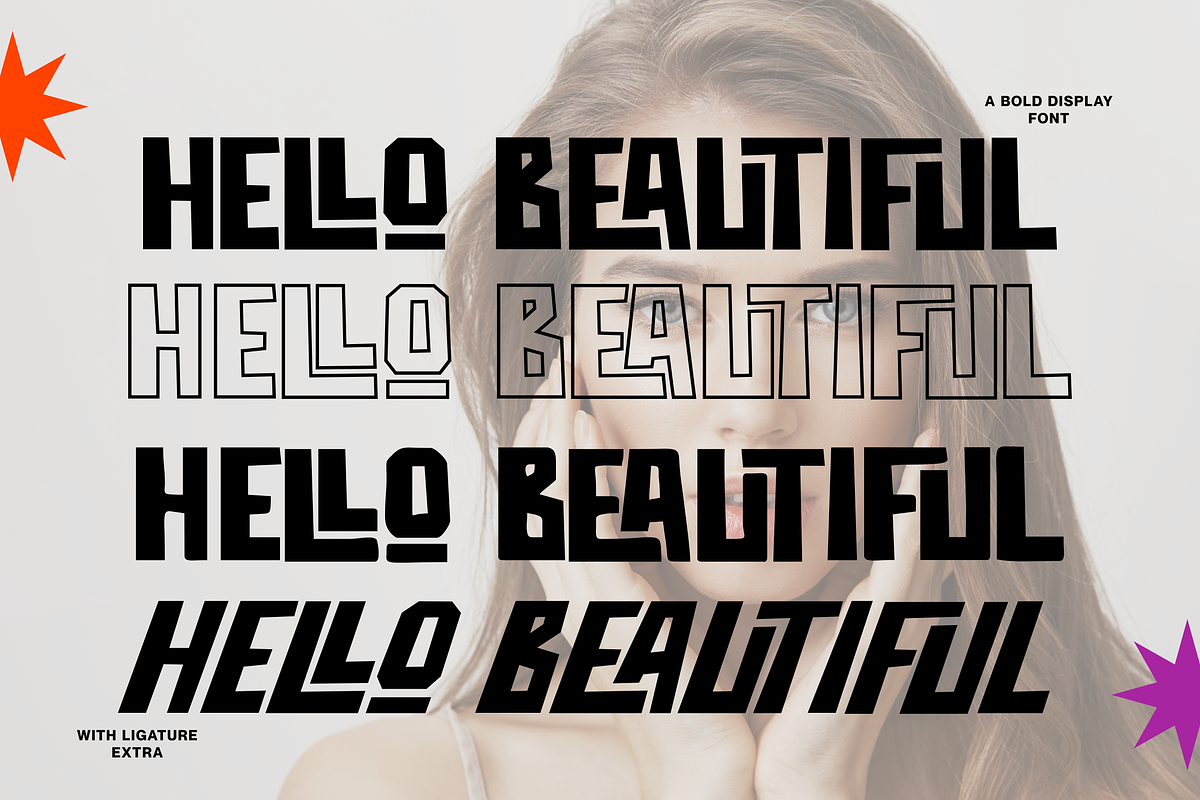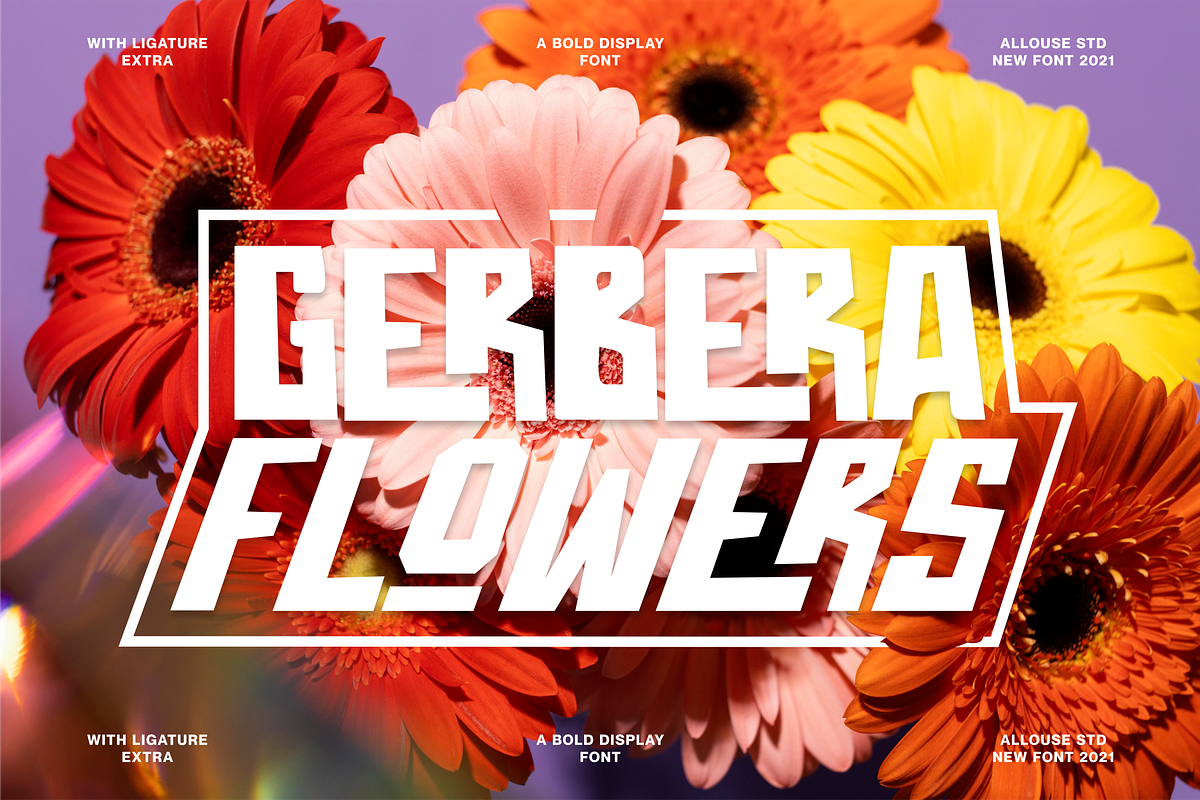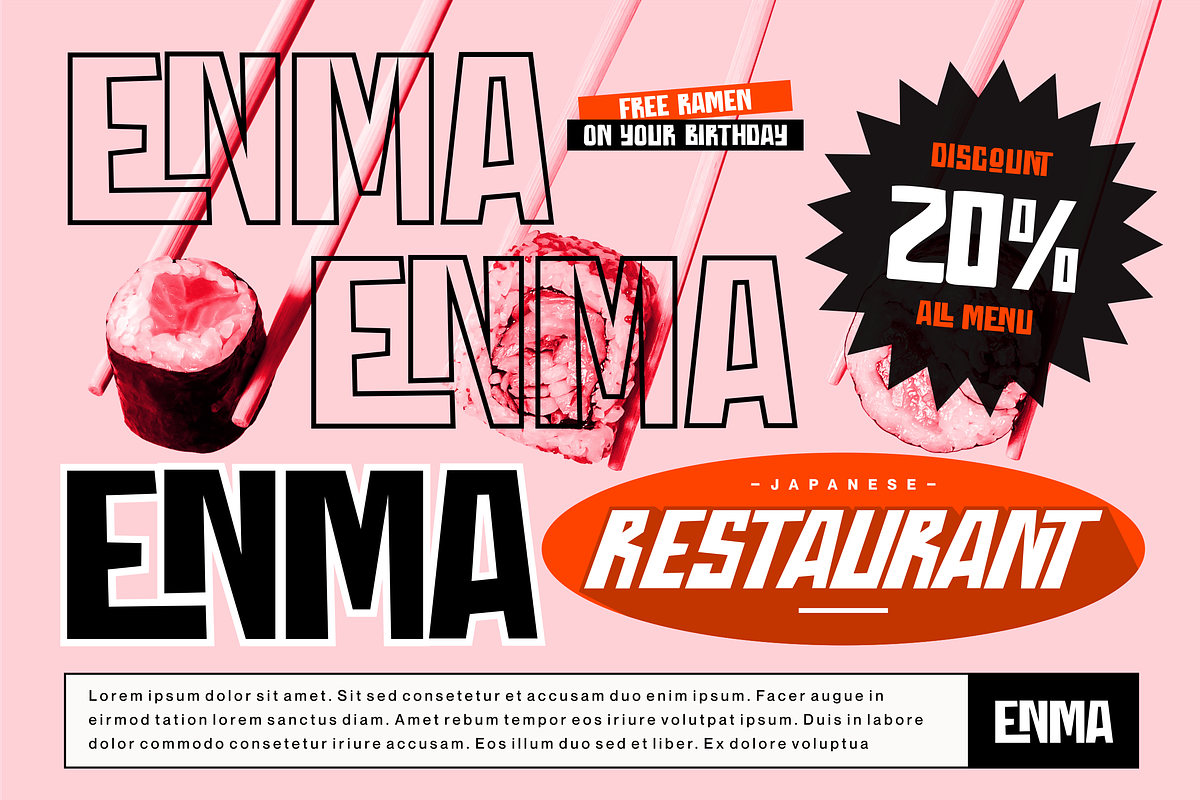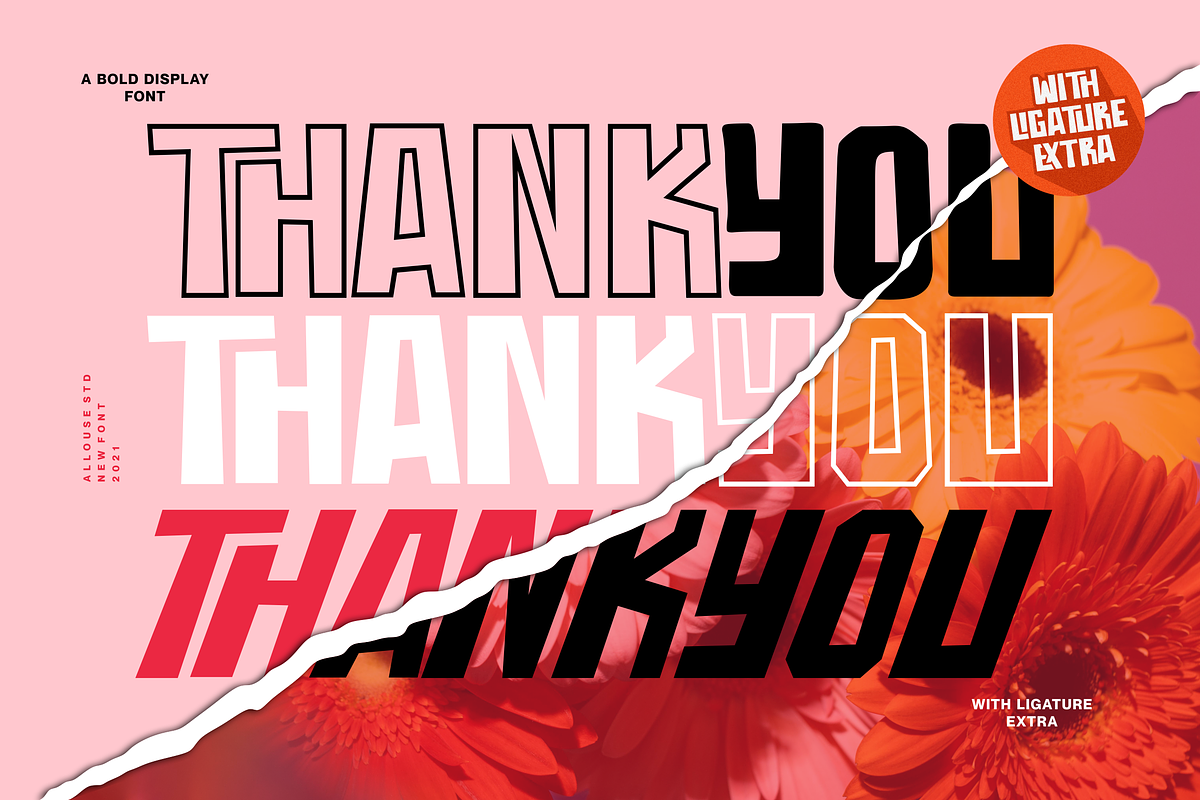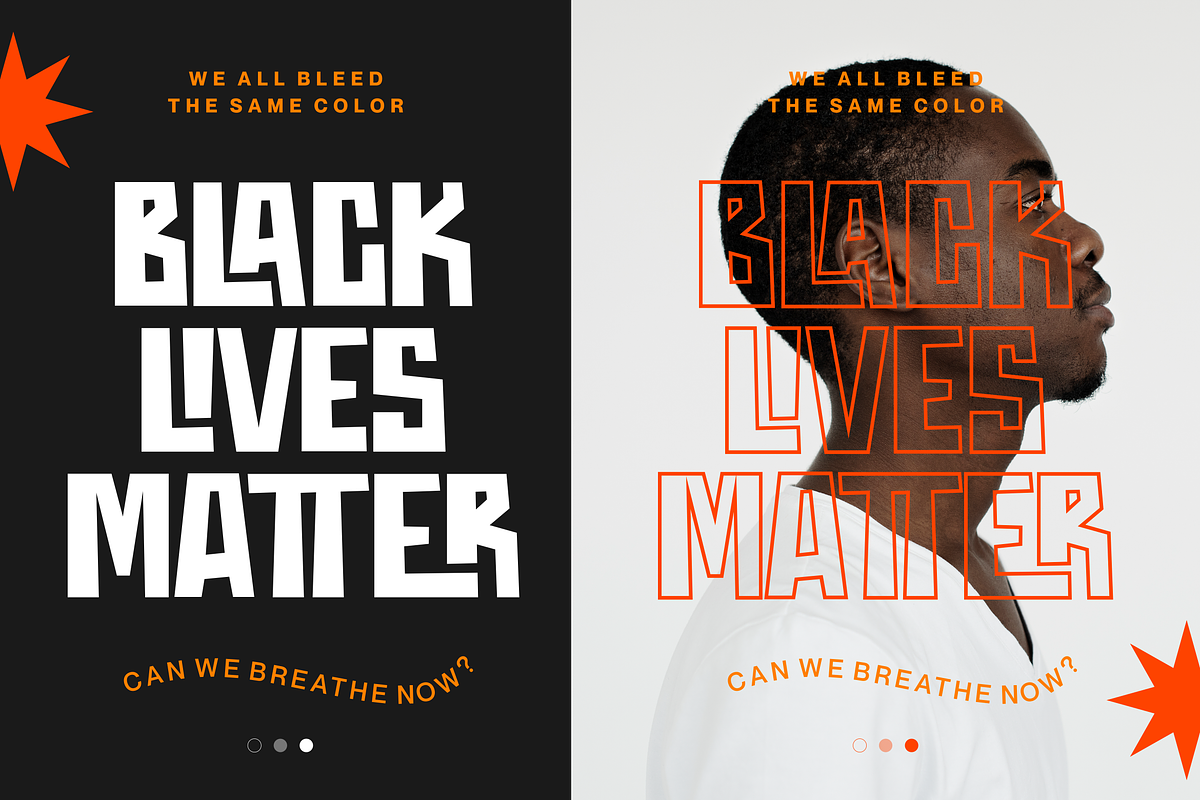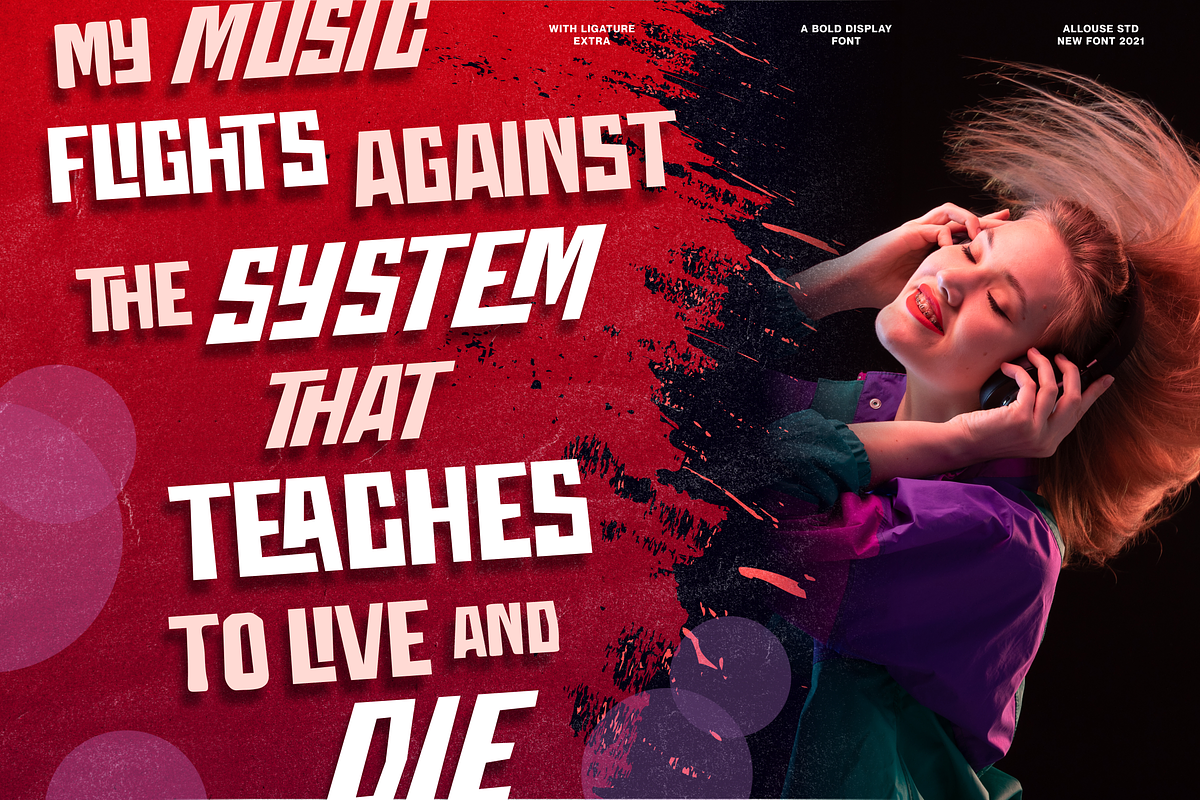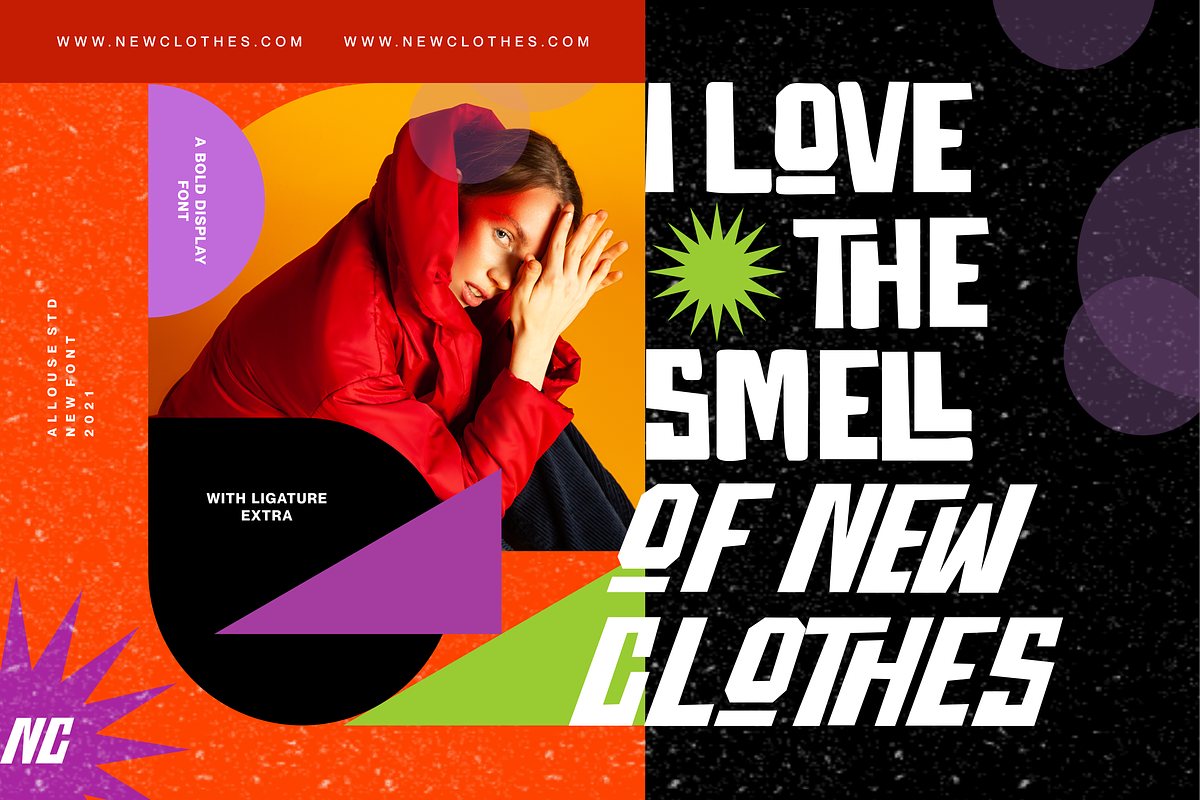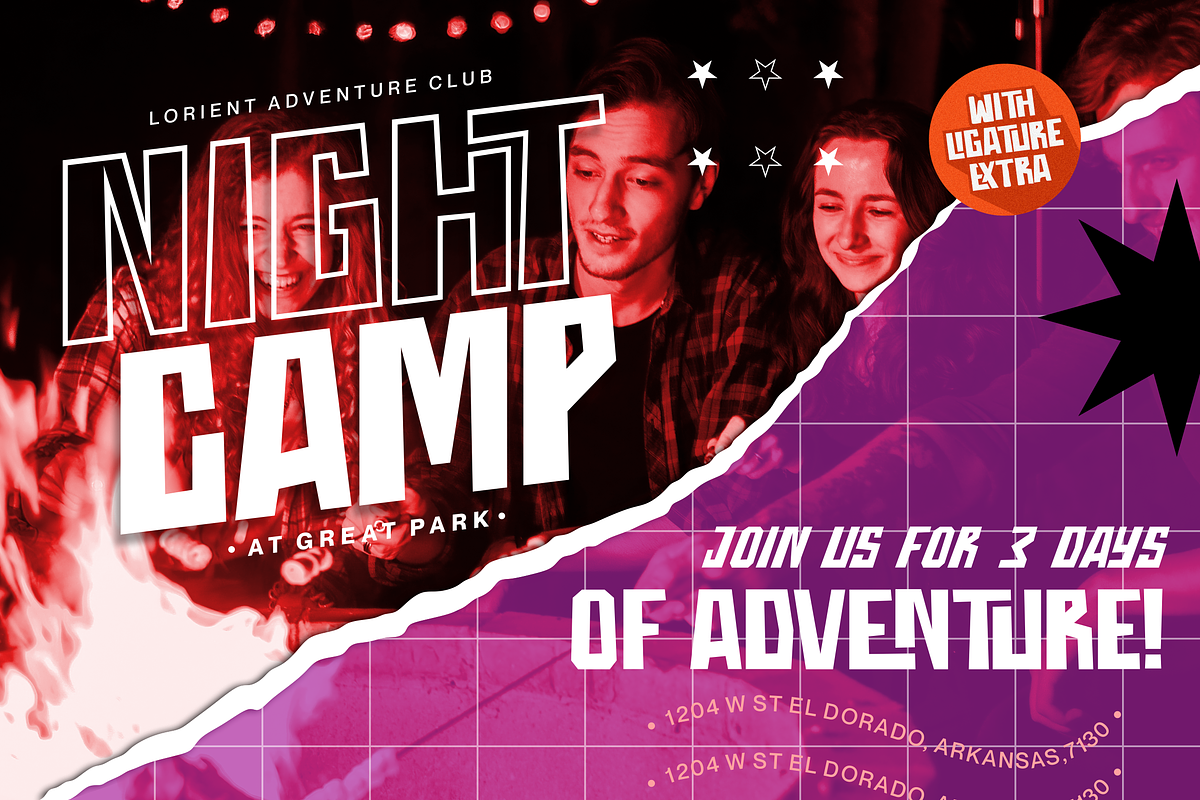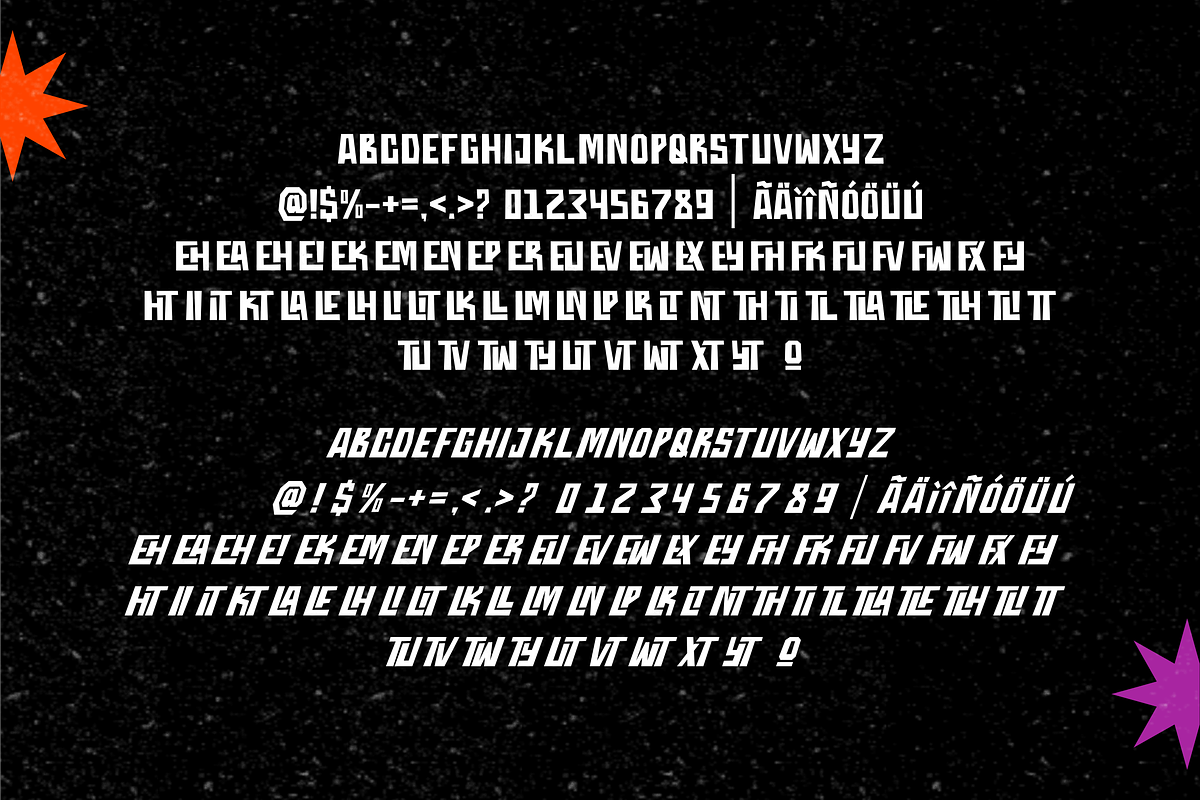
Throostle a Bold Display Font Family
Proudly Presenting, Throostle a Bold Display Font Family.
Throostle is perfect for any titles, logo, product packaging, branding project, megazine, social media, wedding, or just used to express words above the background.
Throostle also come with Multi-Lingual Support.